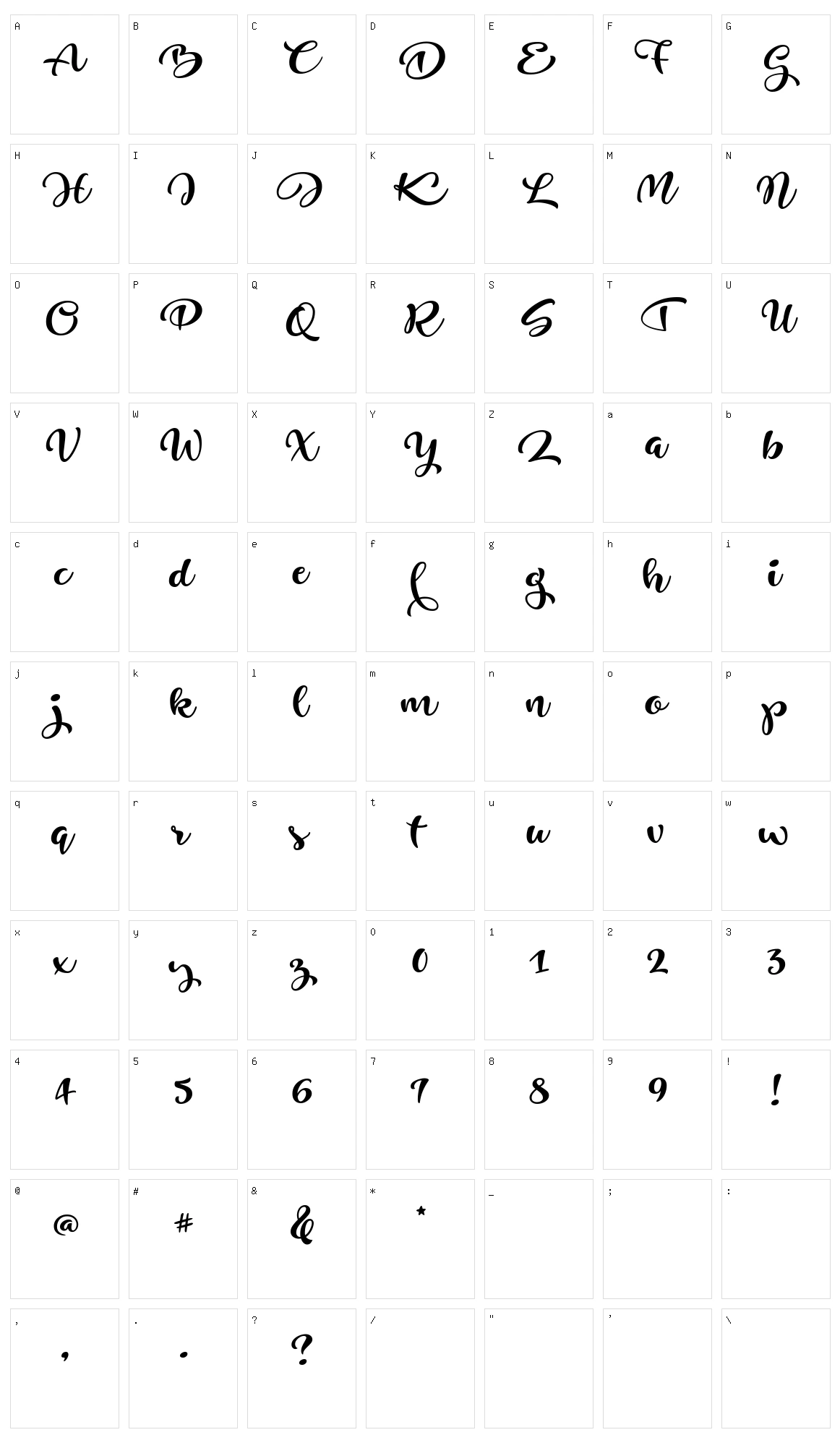
Just Be
Designed by: Roland Huse Design
JUST BE is a playful brush script. Perfect for titles, headings and logotypes for blogs, products and lifestyle imagery (like quotes and stuff).